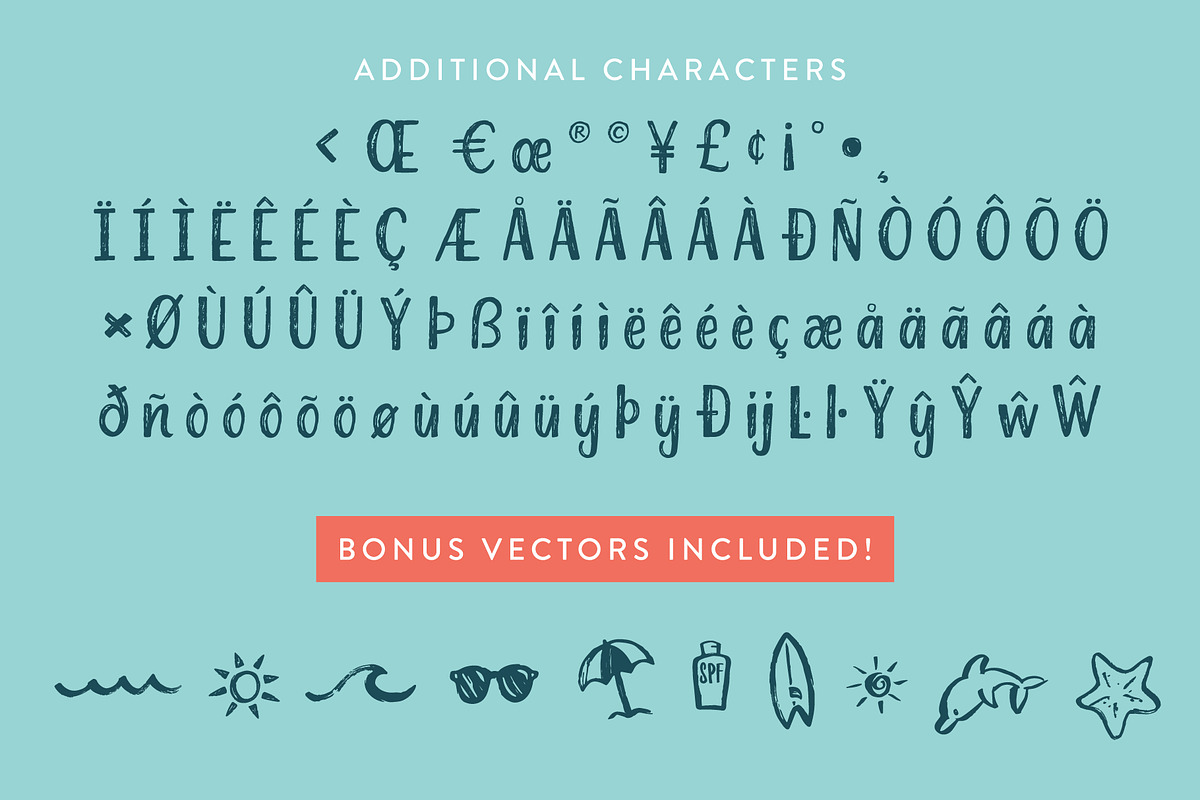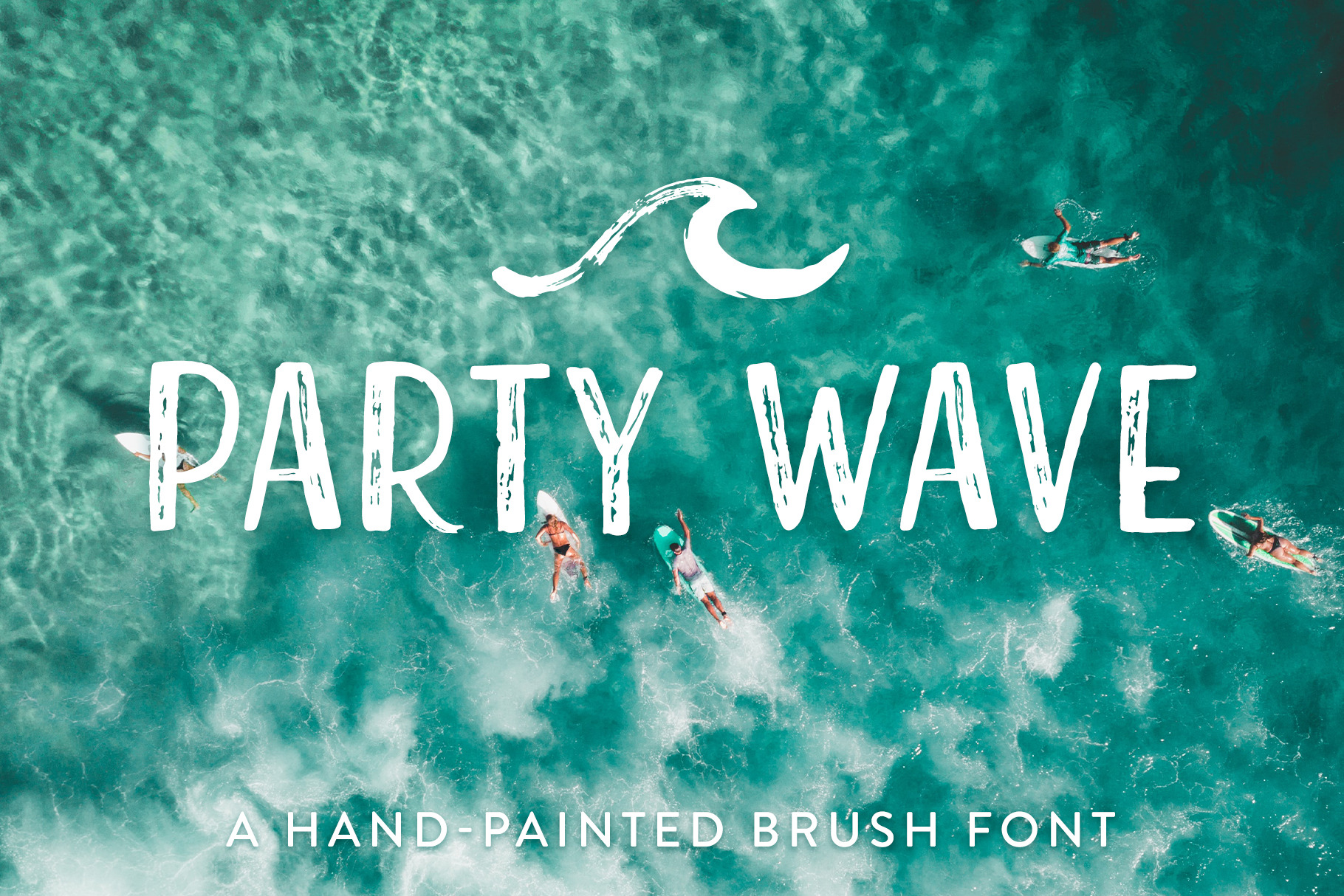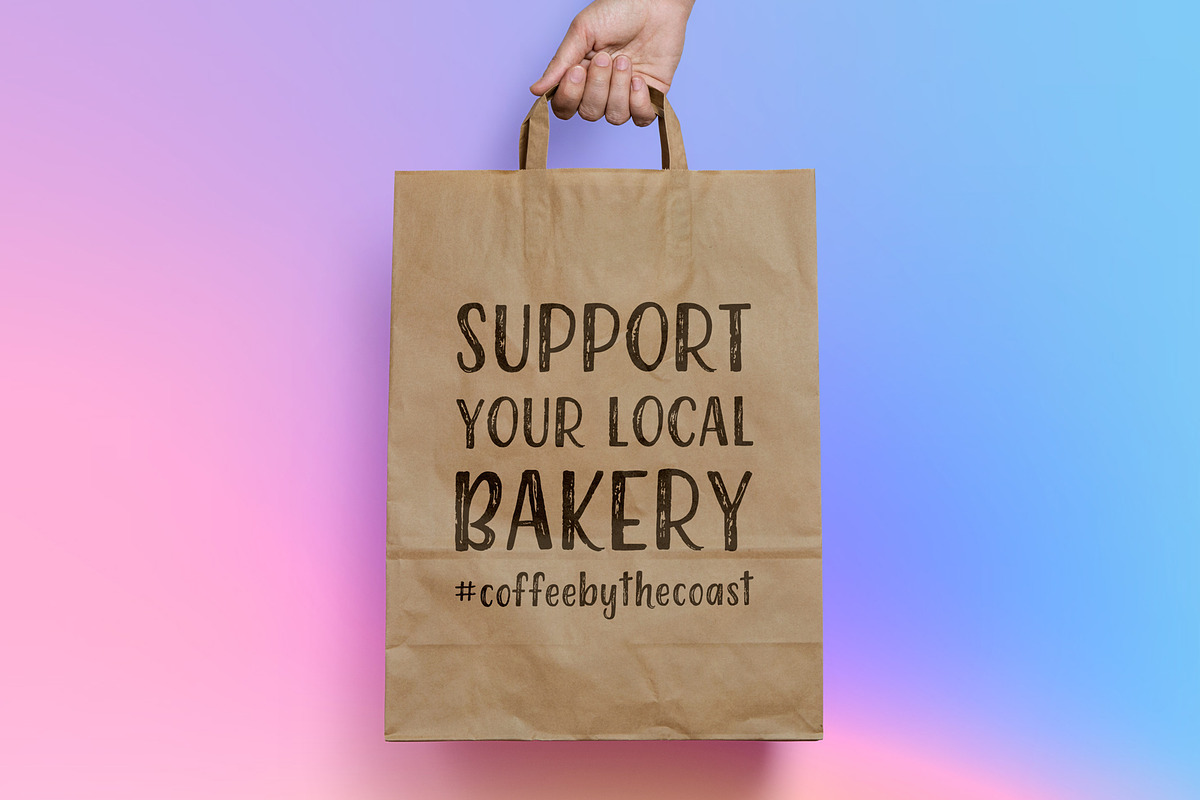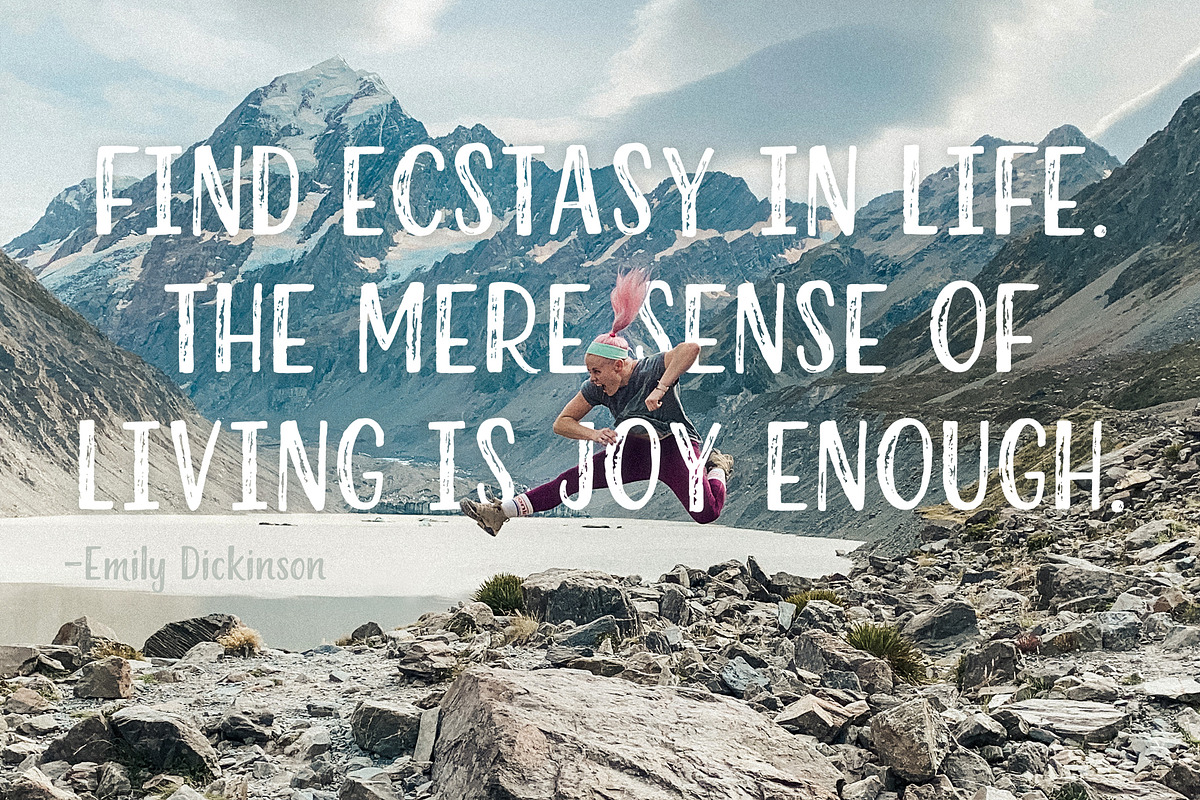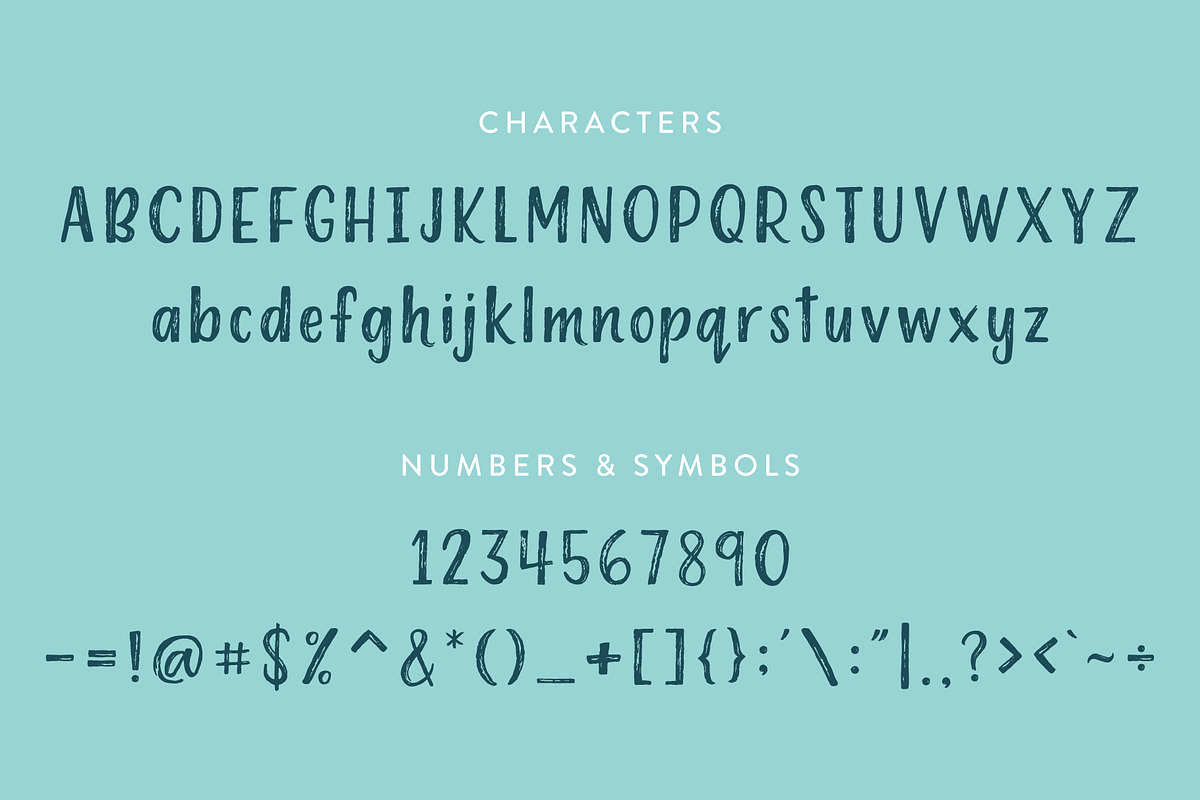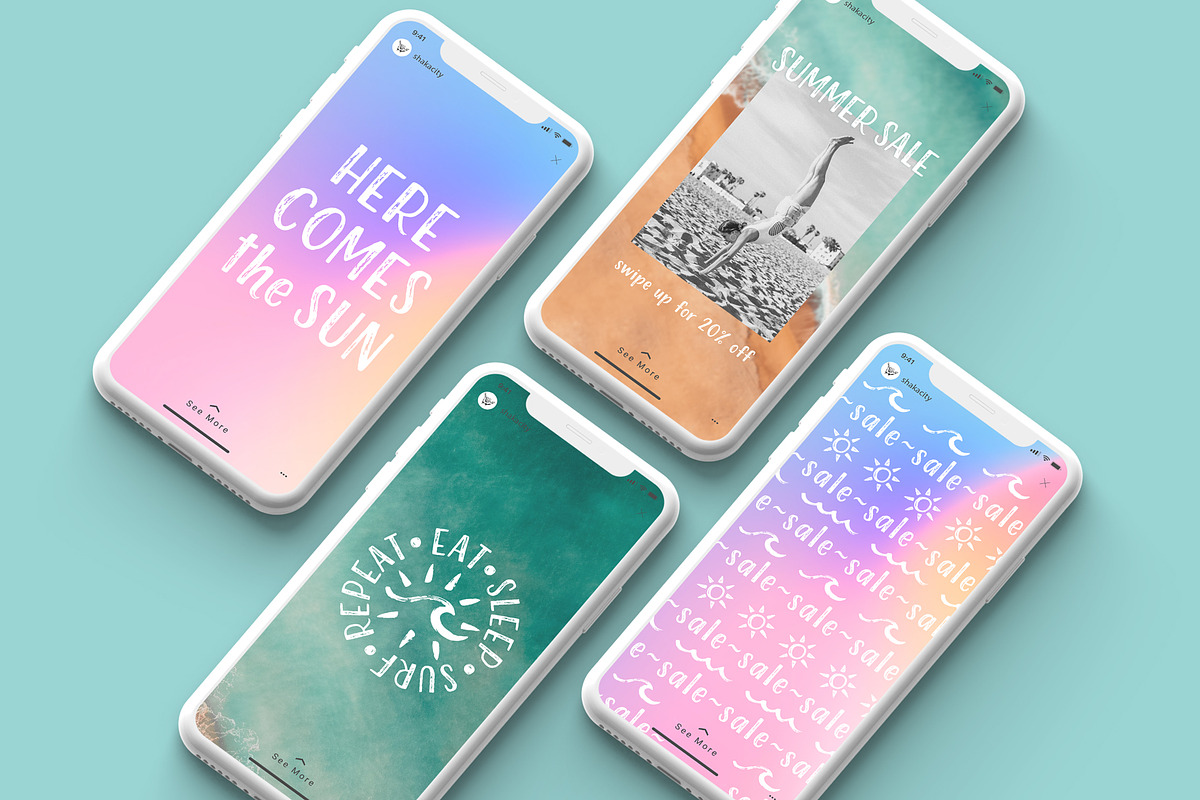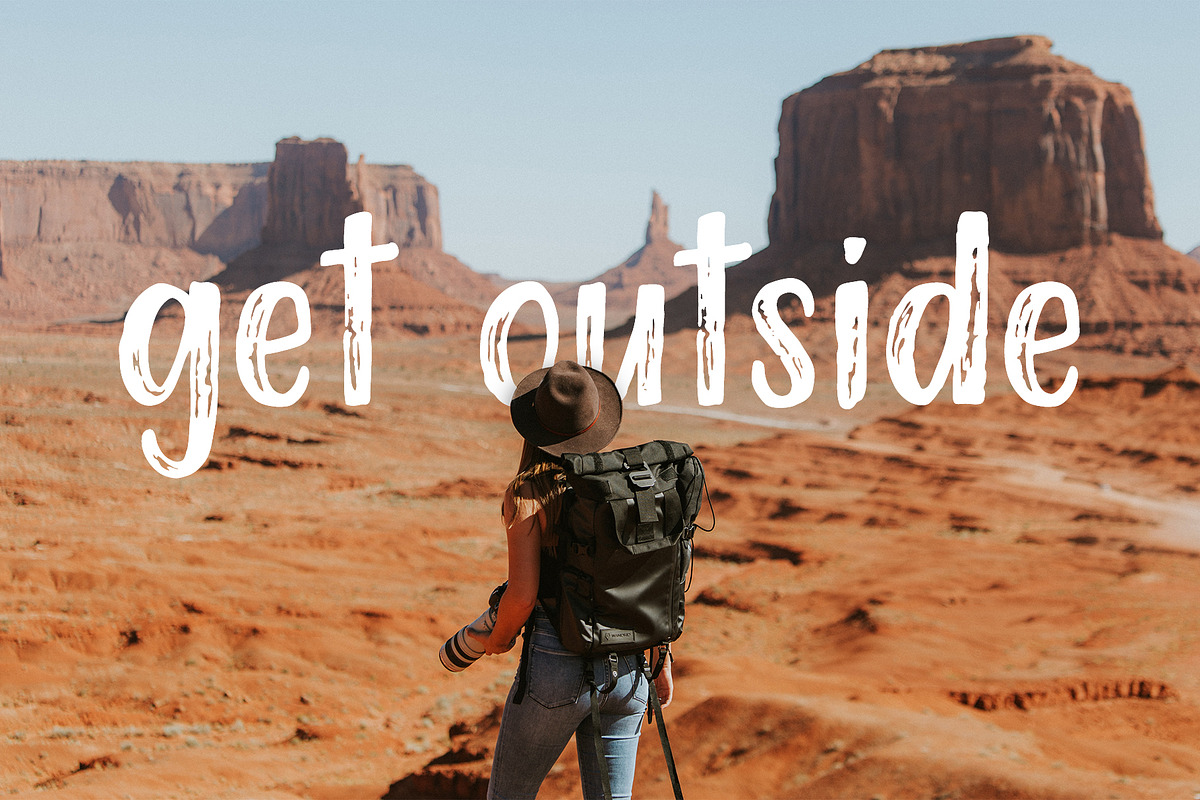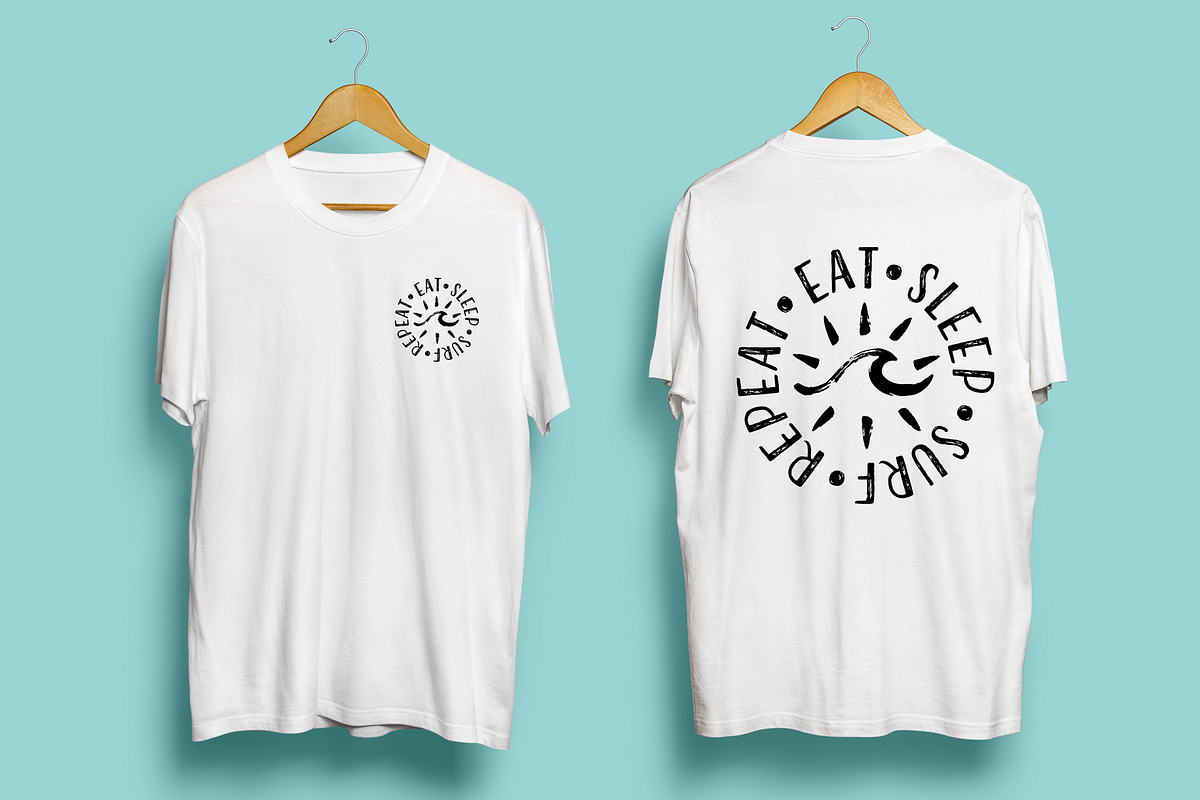
Party Wave | A Hand-Painted Font
Introducing PARTY WAVE, a bold and textured hand-painted brush font. This font features additional multilingual characters and as a BONUS feature you will receive some beachy hand-painted vector icons! OTF & TTF files included.